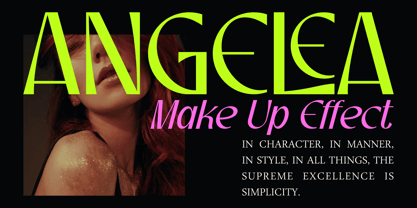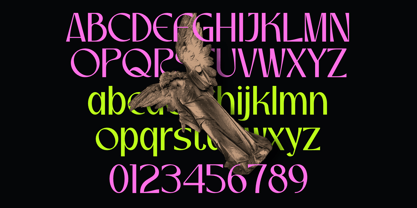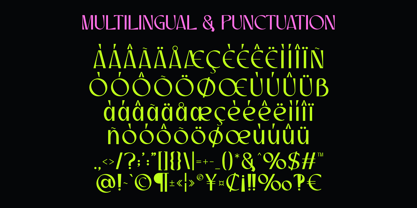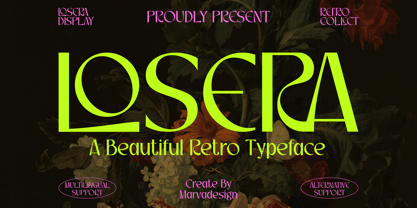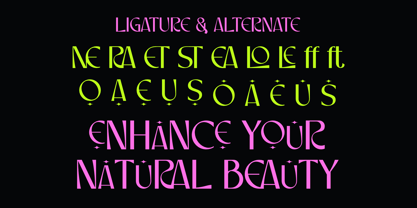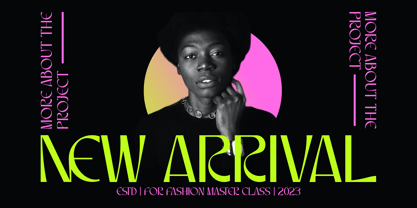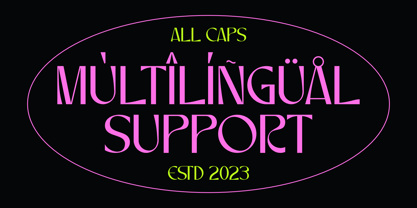
Losera
The Losera Font Family was designed by Febrie Setiawan and published by Marvadesign. Losera contains 1 styles. More about this family
Introducing our new product Losera Font – A Beautiful Retro Font, an elegant and authentic display typeface that blends timeless vintage charm with refined modern aesthetics. Carefully crafted with smooth curves and graceful proportions, Losera brings a warm nostalgic feel while maintaining a clean and sophisticated look.
The font is suitable for any branding project such as logos, template designs, product packaging, posters, and more. Its distinctive style allows it to stand out beautifully across a wide range of contexts, from lifestyle and fashion branding to editorial and promotional materials.